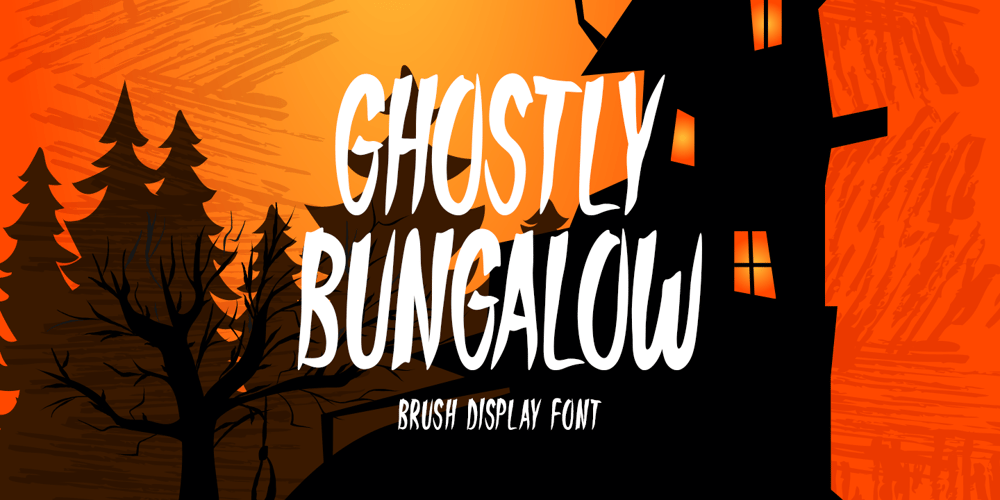
Ghostly Bungalow Font Family was designed by Md Shohail Bhuian and published by Seemly Fonts. Ghostly Bungalow contains 1 styles and family package options. Introducing Ghostly Bungalow, a recently released display font that gives your work a unique flair. Stylish t-shirts, memorable logos, sophisticated stationery, and a variety of print materials may all be enhanced with this font, which adds a unique flair to all your creative projects. Its versatility is evident in digital media as well, which makes it an excellent choice for every kind of design project you can think of, including headers for websites, eye-catching photo frames, flyers that grab attention, inventive music covers, posters that are captivating, and interactive image sliders.